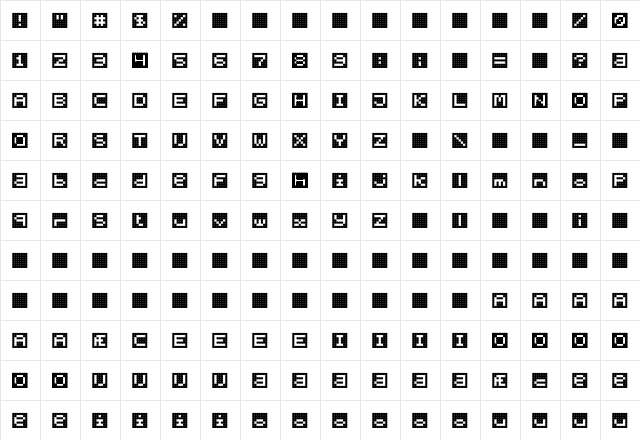
Lingonvecka Regular
Design Context for Lingonvecka Typeface
Lingonvecka is a composed and adaptable typeface that performs quietly and consistently across a wide range of design contexts.